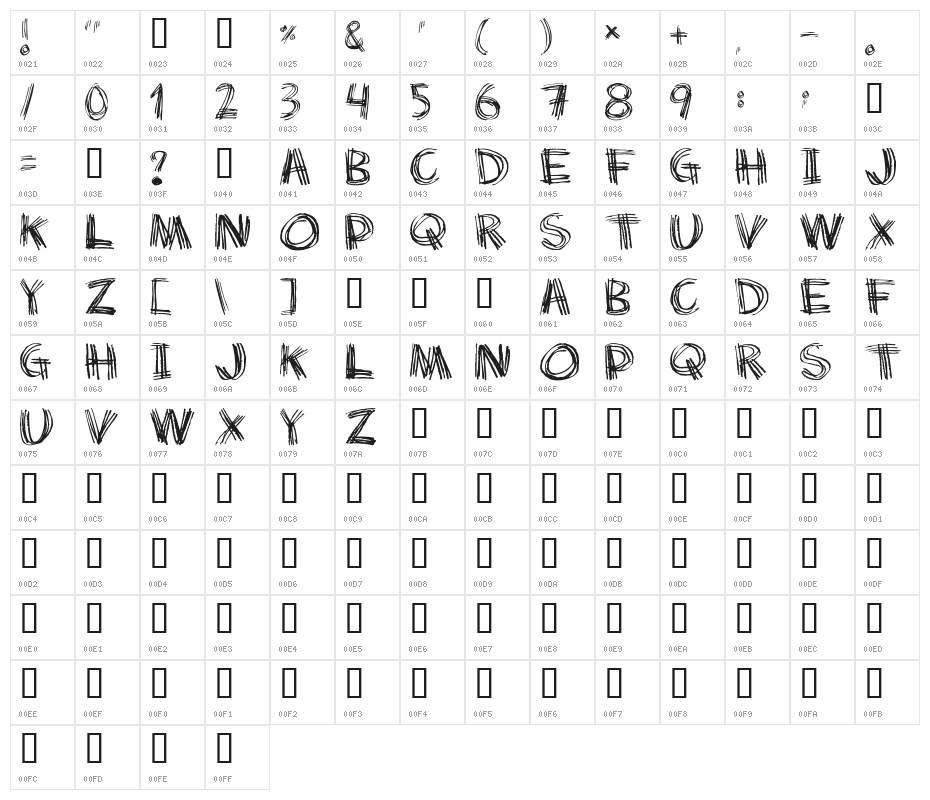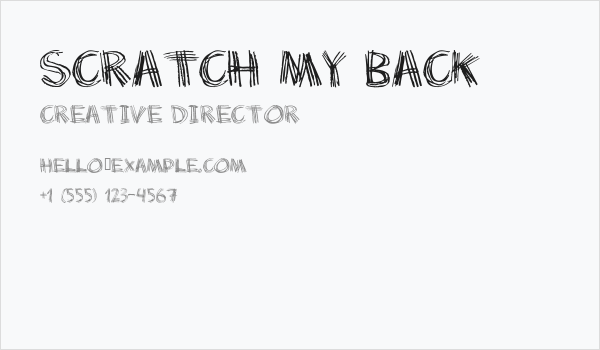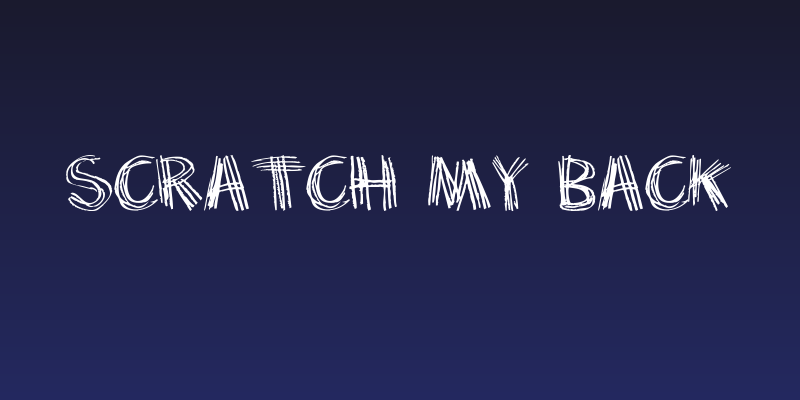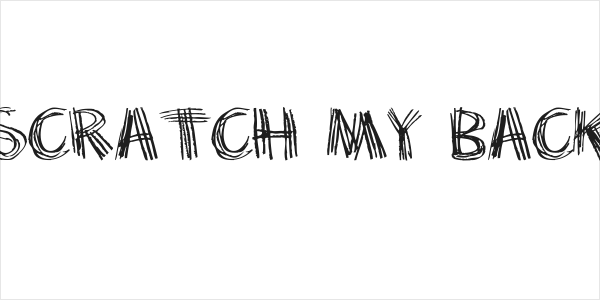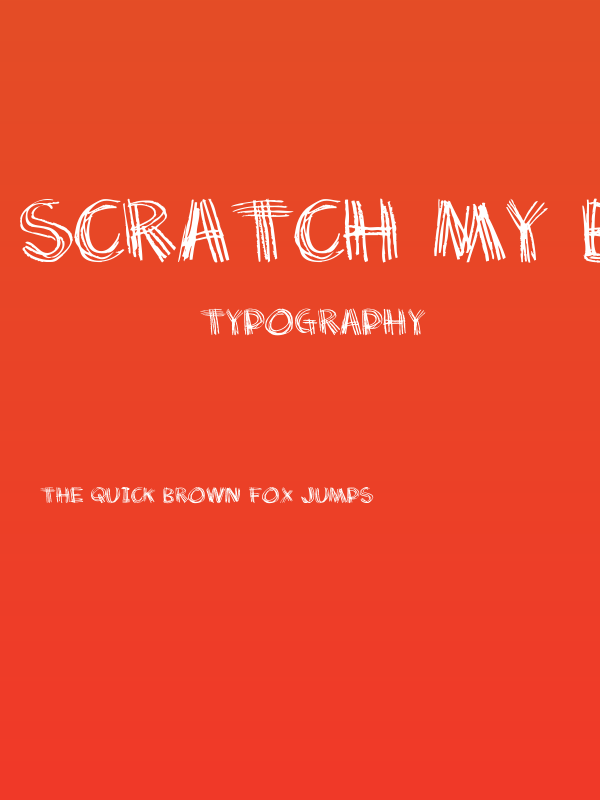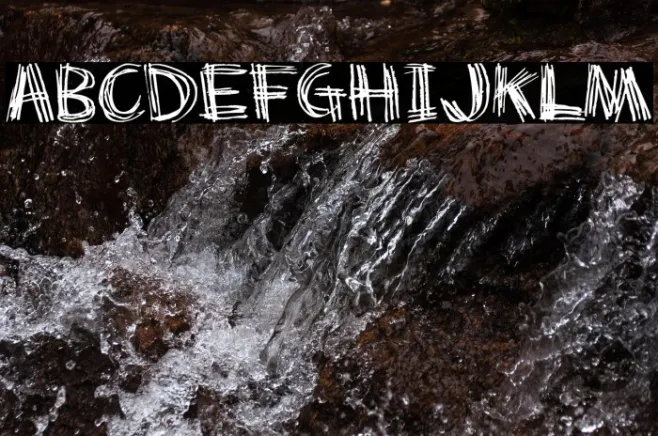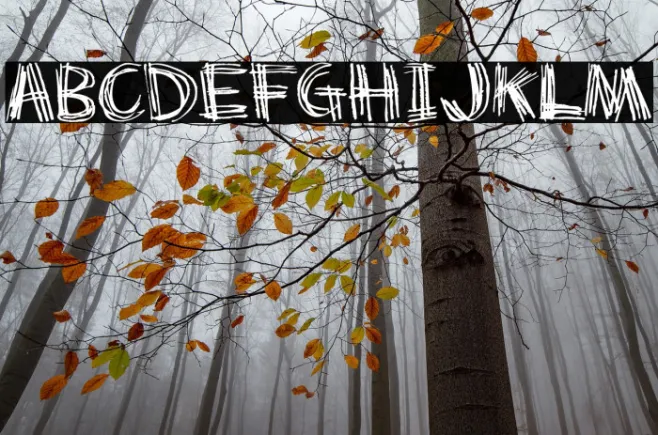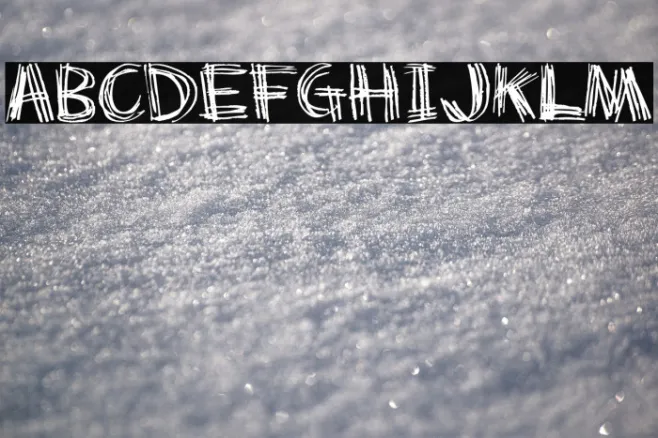
Scratch my back Font
Scratch my back Description
This font features a dynamic, hand-drawn style with a sketch-like appearance. Each character is composed of multiple overlapping strokes, creating a sense of movement and energy. The irregularity in line thickness and the rough, textured edges give it a raw, artistic feel. The uppercase and lowercase letters maintain a consistent style, with a playful and informal tone. Numbers and special characters are equally expressive, making this font suitable for creative and unconventional projects.
| Overall Style | Artistic, Energetic, Playful |
| Use Case | Headlines, Posters, Creative Designs |
| Proposed Projects | Ideal for artistic projects, posters, album covers, and any design requiring a bold, creative touch. |